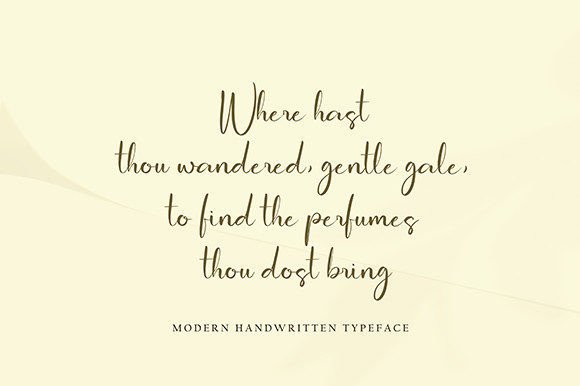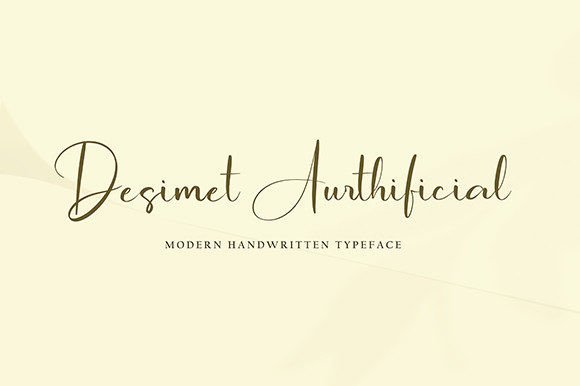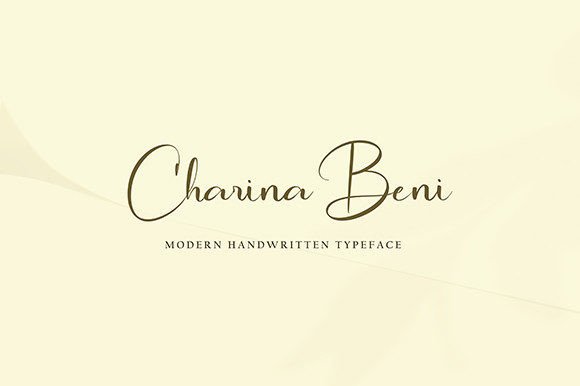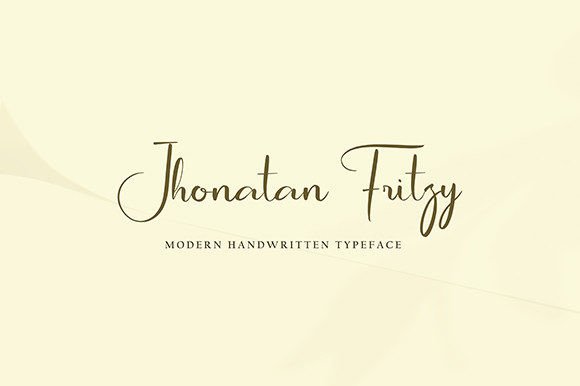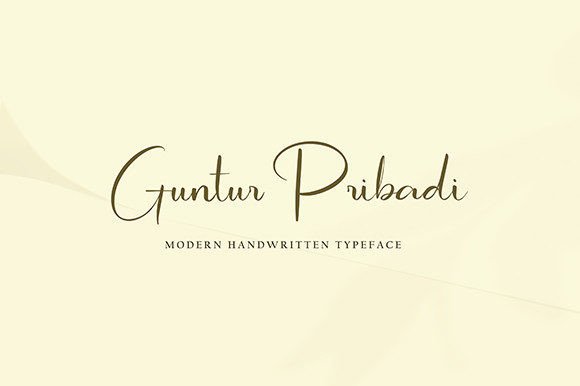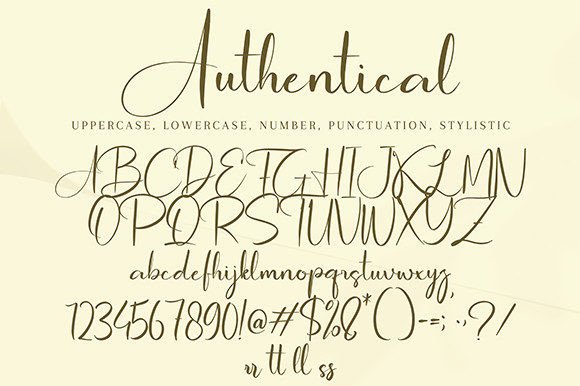
Introducing Authentical Font: The Ultimate Stylish Script Font for Modern Designers
In the world of typography, a font can make or break a design. It’s the foundation upon which a visual identity is built, and it can elevate or detract from the overall aesthetic. For designers and crafters looking for a stylish script font that exudes confidence and authenticity, look no further than Authentical Font. This modern script font is taking the design world by storm with its unique blend of flowing lines, bold curves, and clean, legible style.
The Unique Characteristics of Authentical Font
Authentical Font is not just another script font. Its distinct characteristics set it apart from the rest, making it perfect for a wide range of design applications. Here are some of its key features:
- Flowing Lines: Authentical Font boasts smooth, flowing lines that give it a dynamic and elegant feel. These lines are carefully crafted to create a sense of movement and fluidity, making the font perfect for designs that require a touch of sophistication.
- Bold Curves: The bold curves of Authentical Font add a level of confidence and strength to any design. These curves are strategically placed to create a sense of balance and harmony, making the font versatile and highly legible.
- Clean and Legible: Despite its bold and flowing nature, Authentical Font remains clean and highly legible. This makes it an excellent choice for designs that require a clear and concise message, such as branding, social media posts, and advertising campaigns.
Perfect for Branding, Social Media, and Advertising Campaigns
Authentical Font’s unique combination of style and legibility makes it an ideal choice for a variety of design applications. Here are some of the ways you can use Authentical Font to elevate your designs:
- Branding: Create a lasting impression with Authentical Font. Its confident and authentic style makes it perfect for logos, business cards, and other branding materials.
- Social Media: Stand out on social media with Authentical Font. Its clean and legible style ensures that your message gets across clearly, while its bold curves and flowing lines add a touch of personality to your posts.
- Advertising Campaigns: Make your advertising campaigns more effective with Authentical Font. Its unique style and high legibility make it perfect for headlines, taglines, and other advertising materials.
Why Choose Authentical Font?
With so many fonts available, why choose Authentical Font? Here are some compelling reasons:
- Unique Style: Authentical Font offers a unique blend of style and legibility that sets it apart from other fonts.
- Versatility: Its clean and legible style makes it perfect for a wide range of design applications, from branding to social media and advertising campaigns.
- Ease of Use: Authentical Font is easy to use and pairs well with a variety of other fonts, making it a great addition to any designer’s toolkit.
In conclusion, Authentical Font is a stylish script font that offers a unique blend of style, confidence, and authenticity. Its flowing lines, bold curves, and clean, legible style make it perfect for designers and crafters looking to elevate their designs. Whether you’re working on a branding project, social media campaign, or advertising materials, Authentical Font is an excellent choice. With its versatility, ease of use, and unique style, Authentical Font is sure to become a staple in your design toolkit.